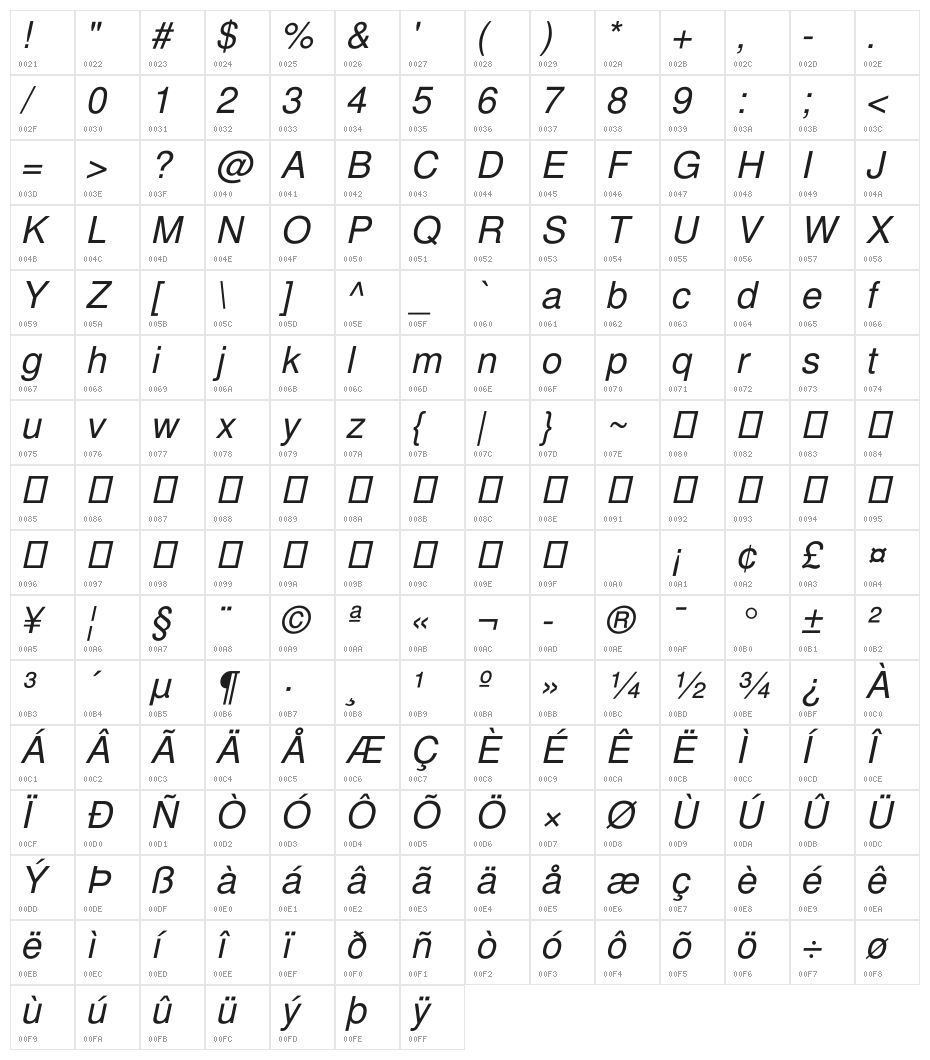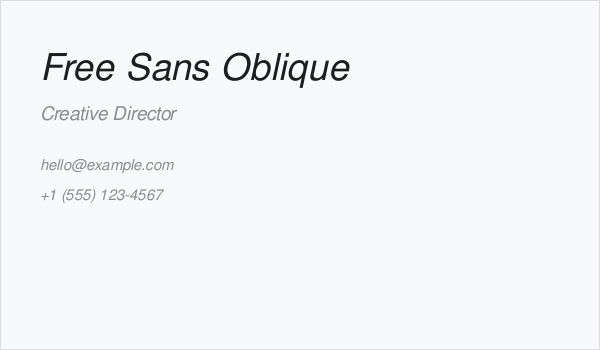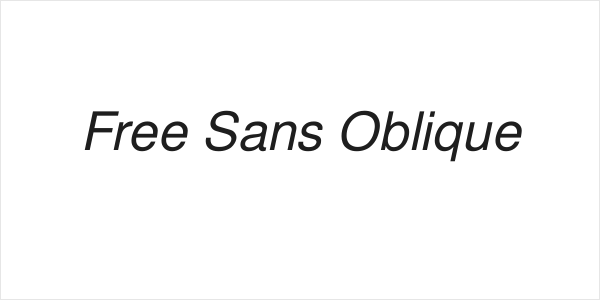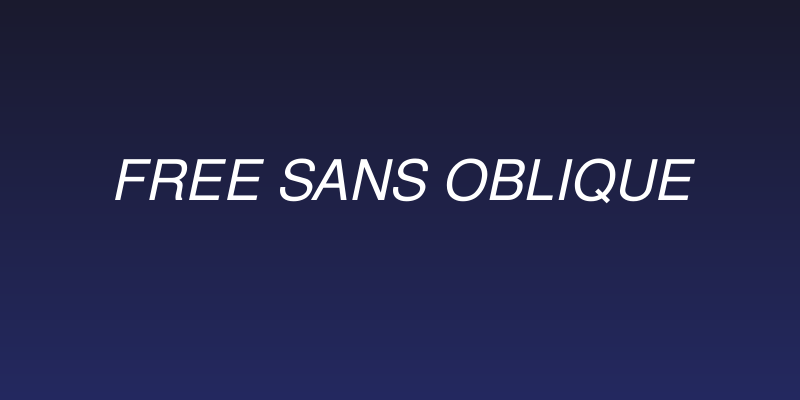
Free Sans Oblique Font
Free Sans Oblique Description
This font features a sleek, modern design with a distinct oblique style, giving it a dynamic and forward-leaning appearance. The characters are clean and sans-serif, providing a contemporary look that is both professional and approachable. The strokes are consistent in weight, contributing to a uniform appearance across all characters. The font maintains a balanced proportion, ensuring readability while adding a touch of elegance. Its simplicity and clarity make it versatile for various design applications.
| Proposed Projects | Ideal for branding, advertising, and digital content where a modern and professional look is desired. |